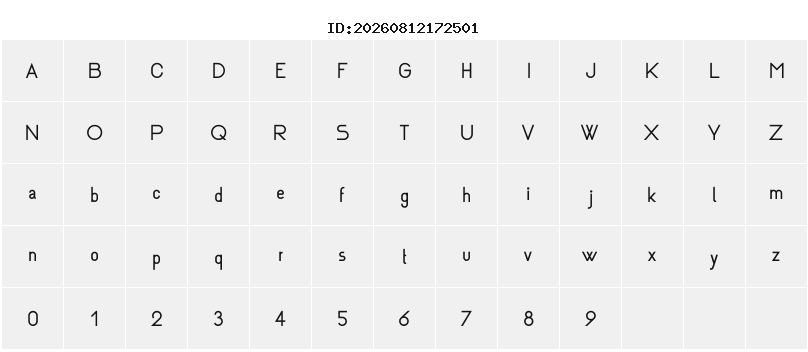
Rhanoll Preview
• Font Name: Rhanoll
• Full Font Name: Rhanoll
About Rhanoll.ttf
Rhanoll.ttf is a modern, elegant sans-serif font designed for ultimate readability and visual harmony. Perfect for branding, headlines, web design, and print materials.